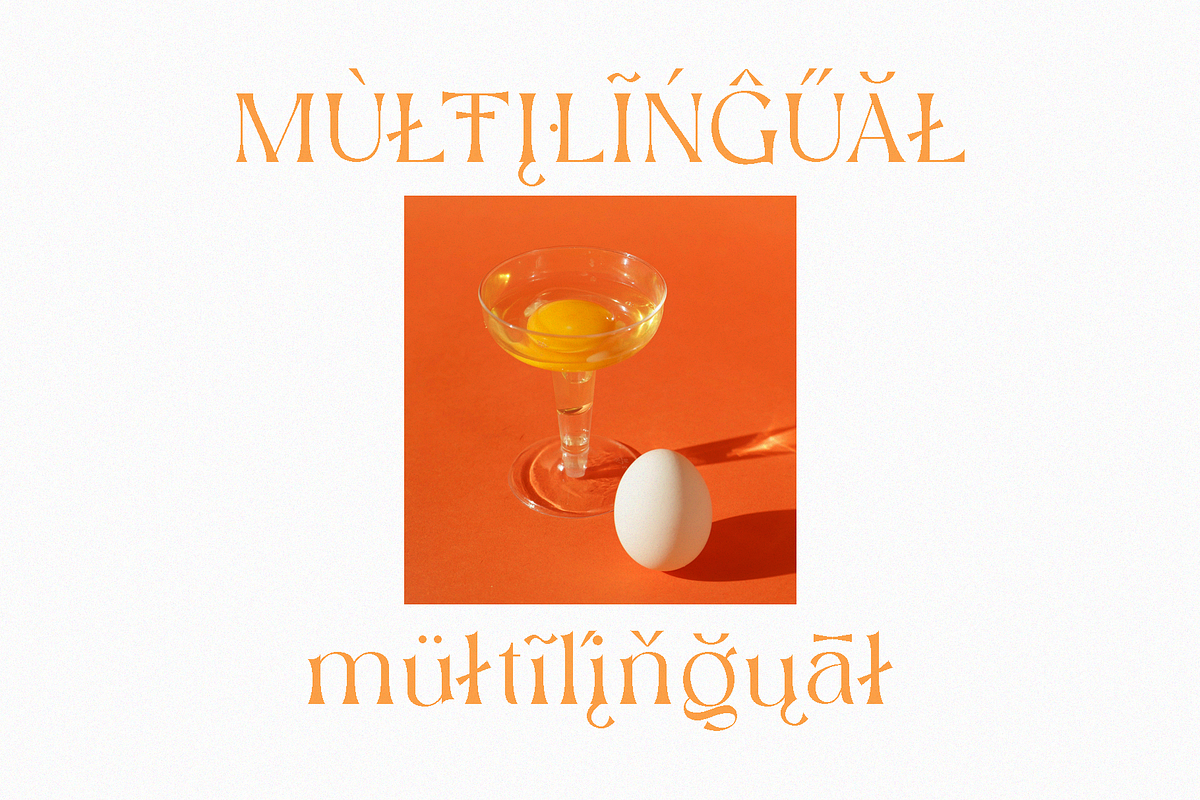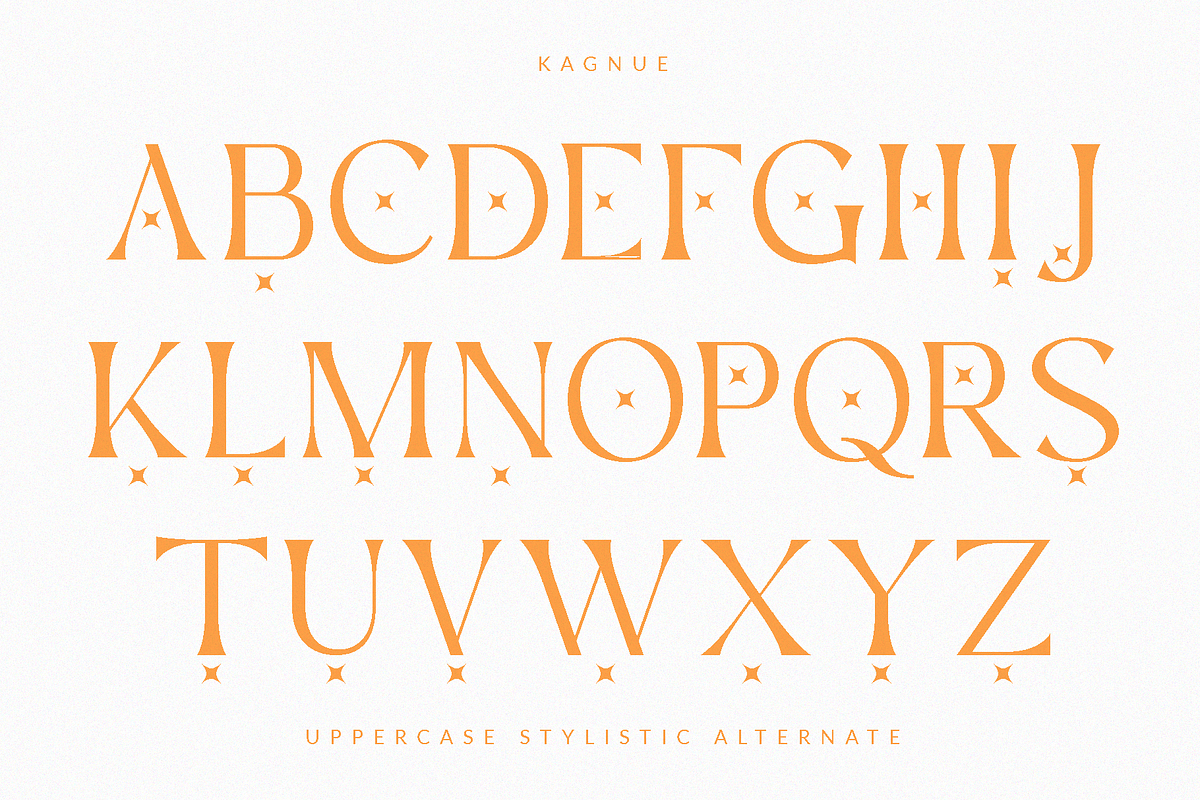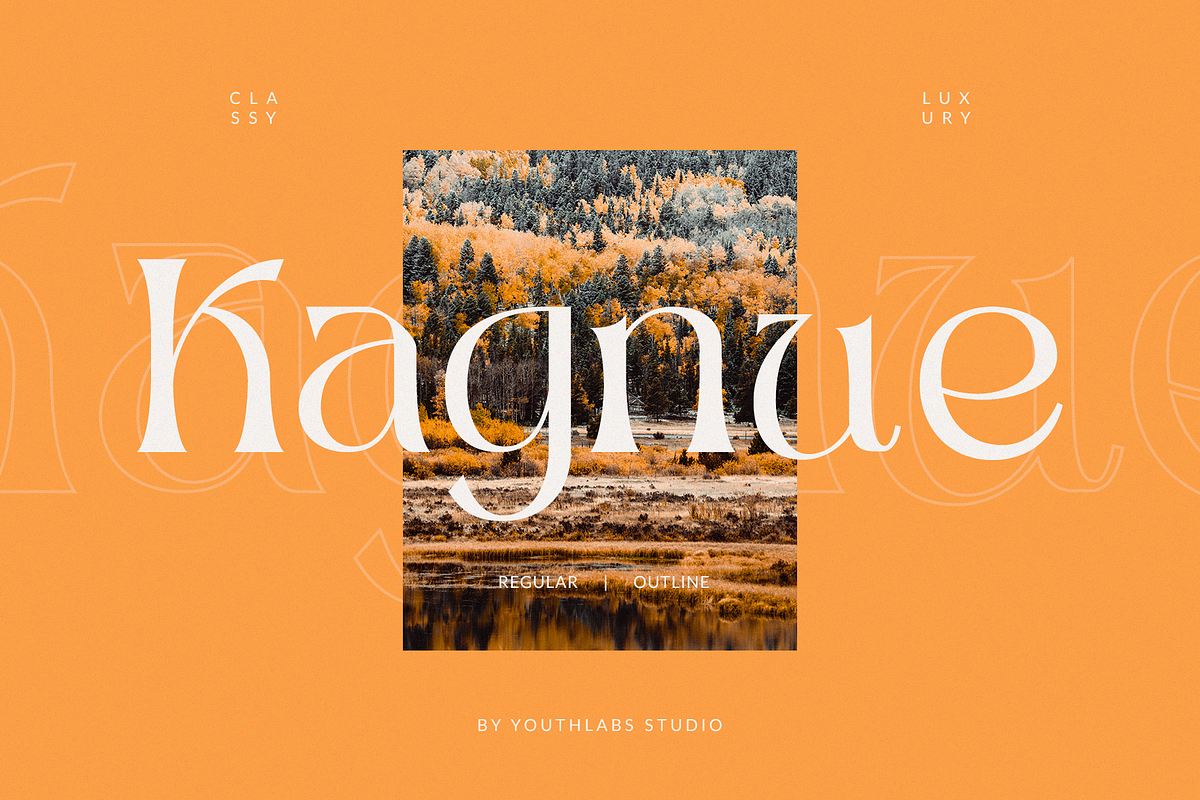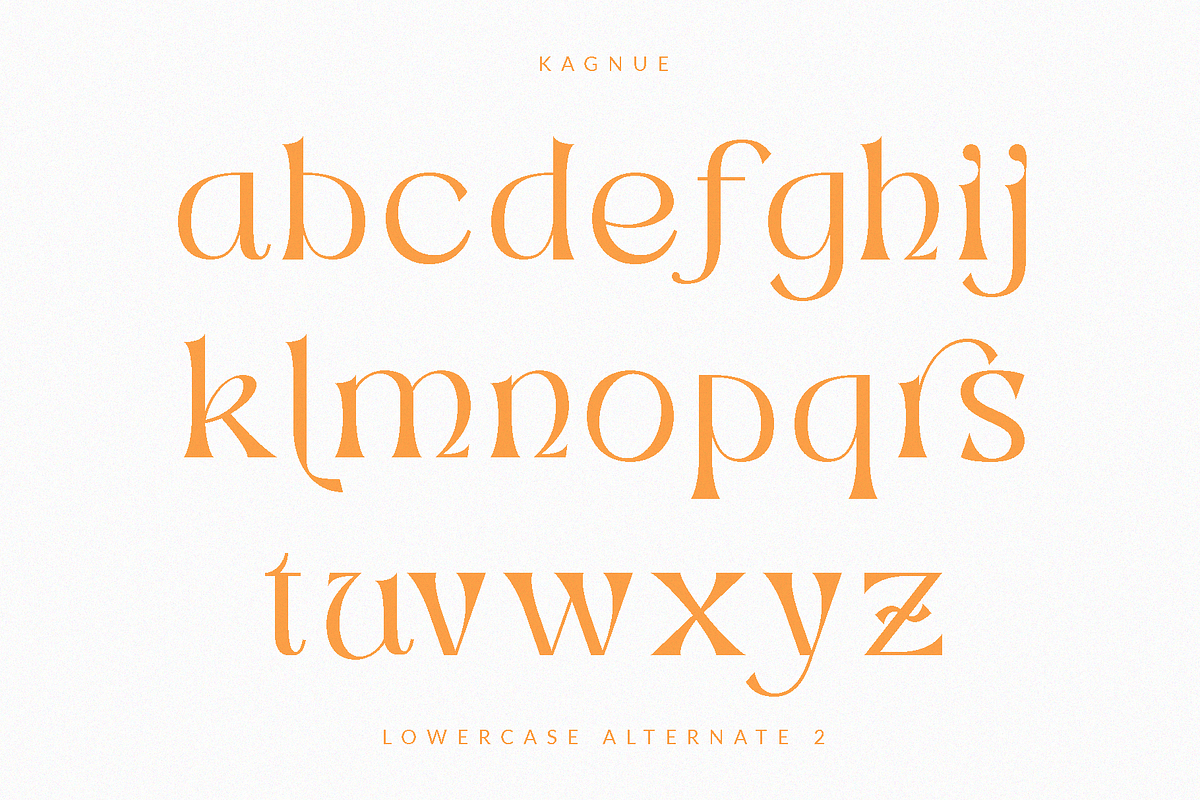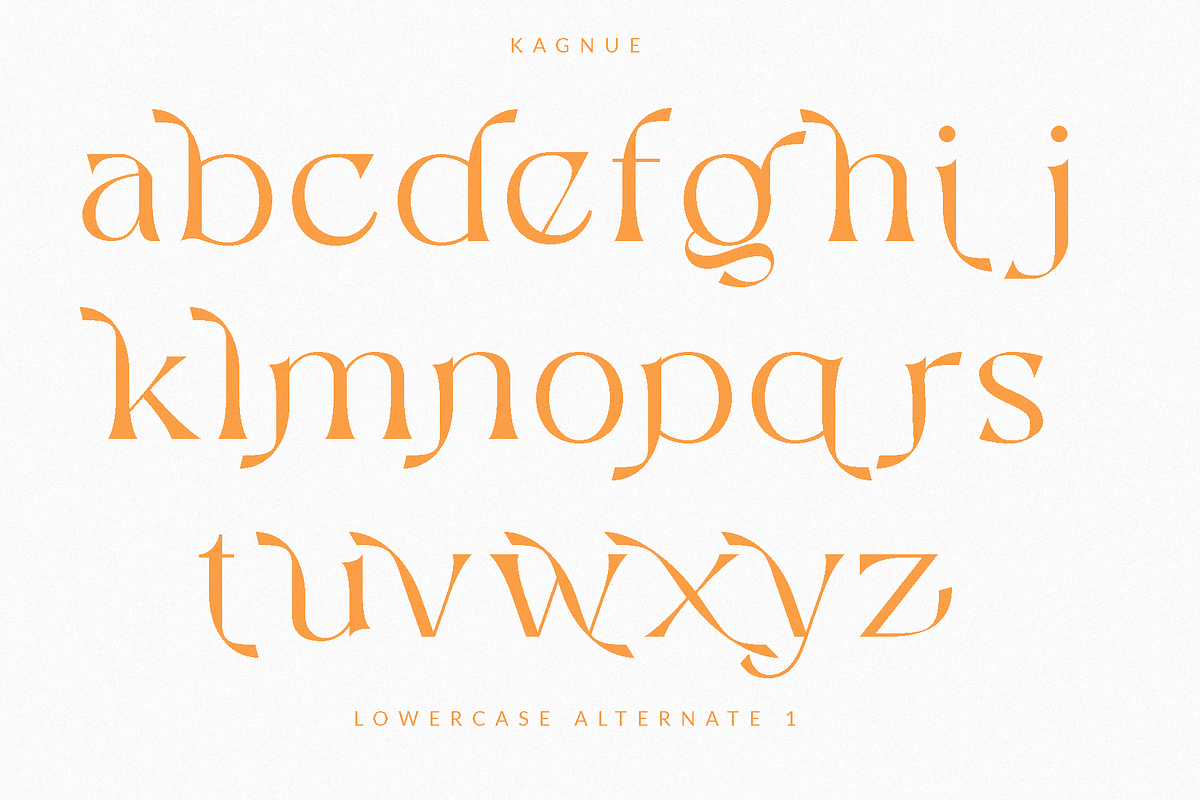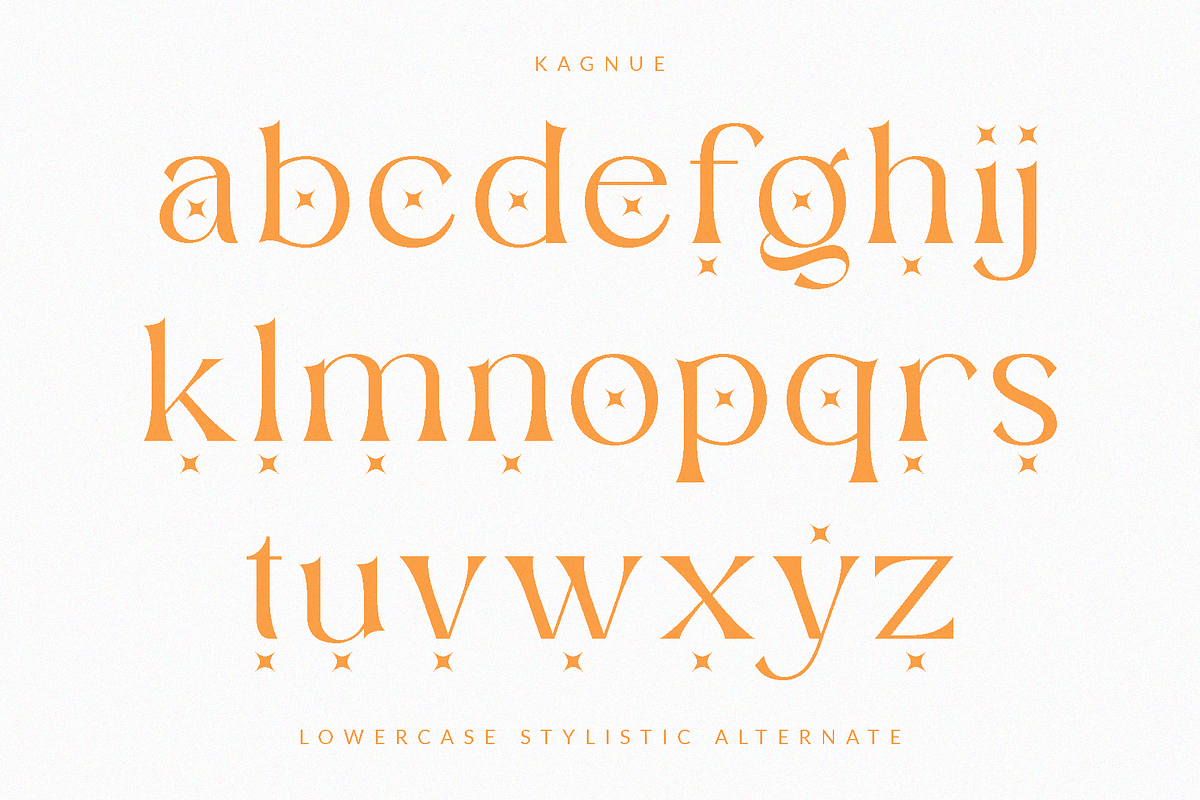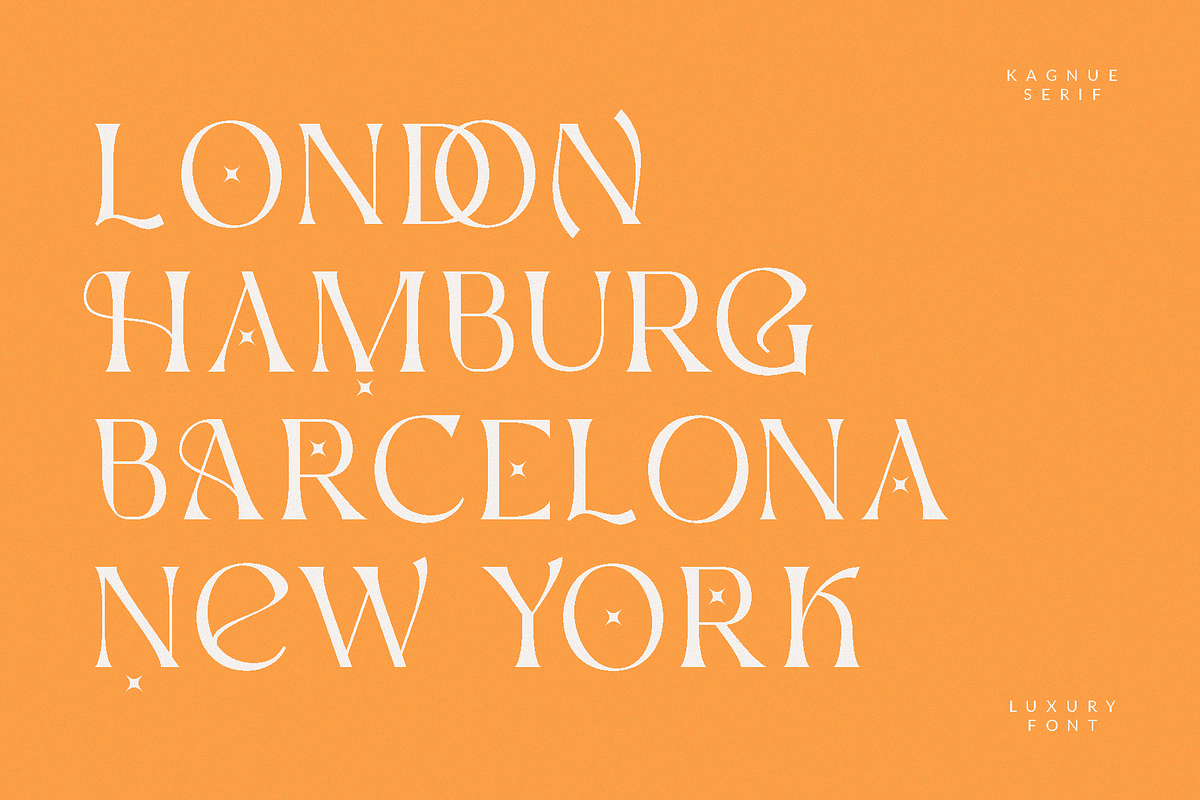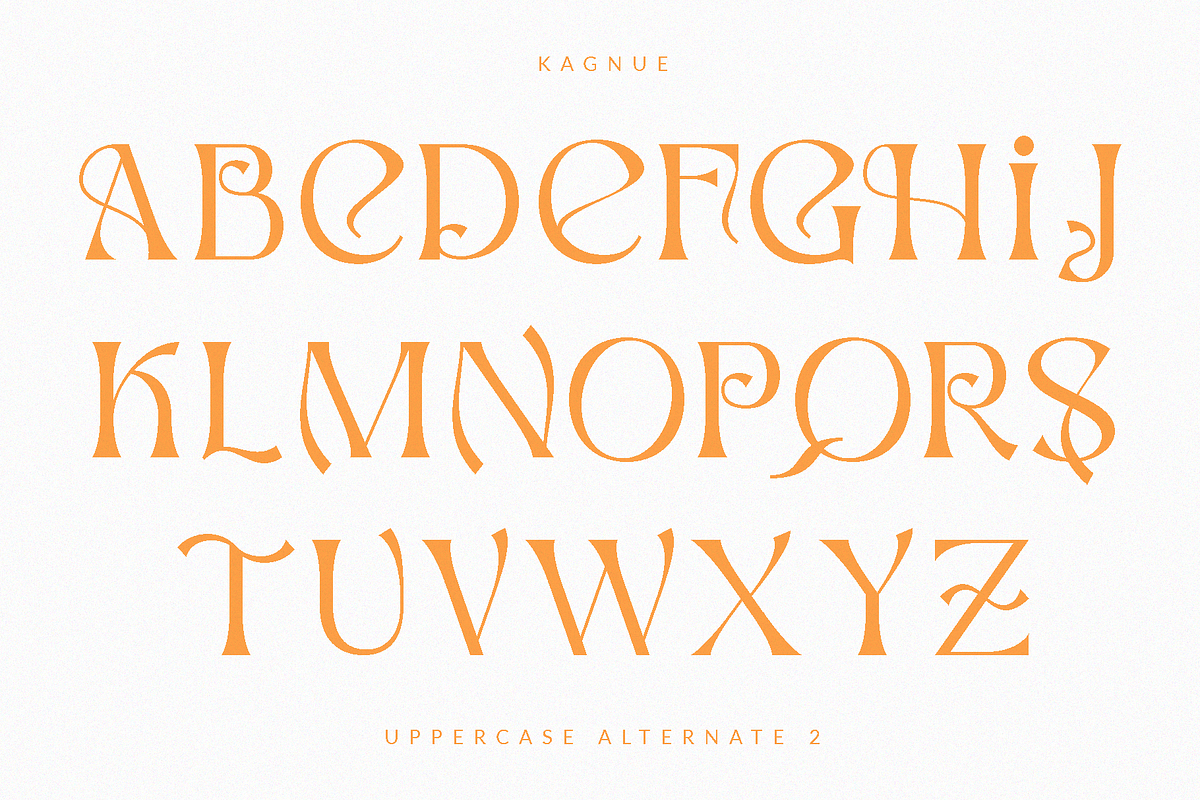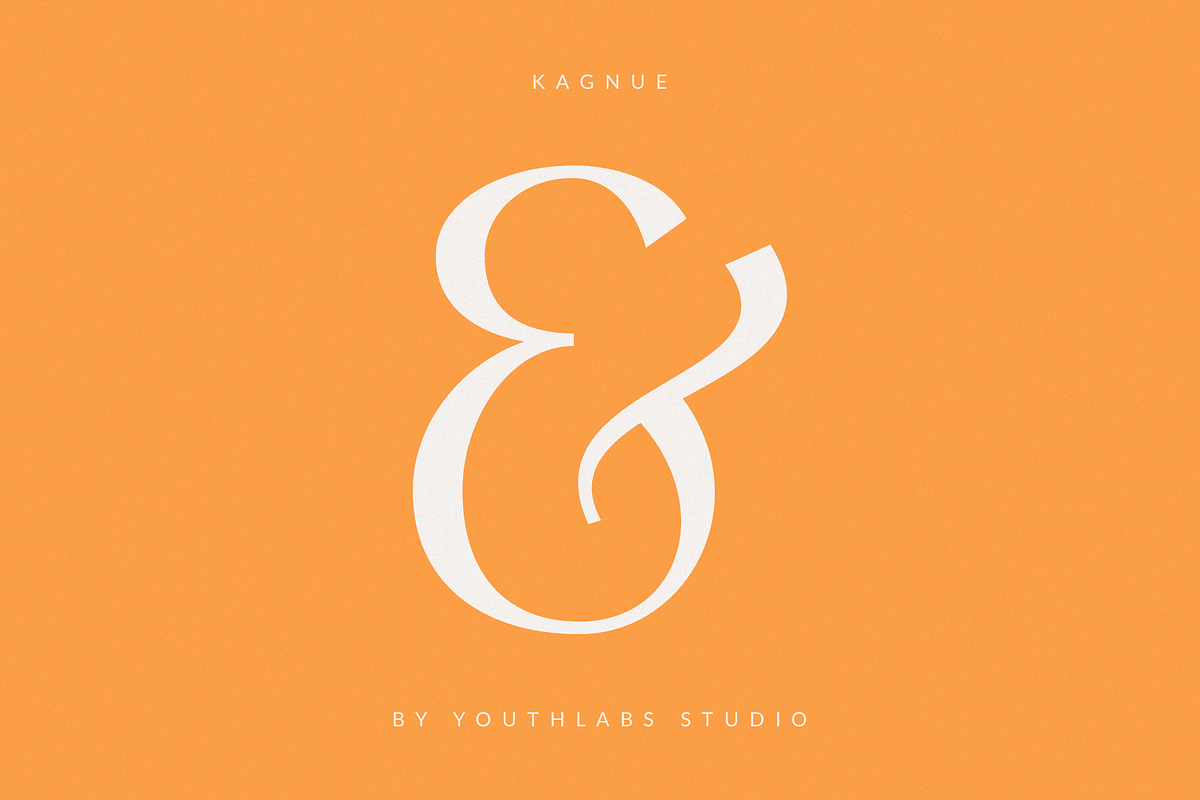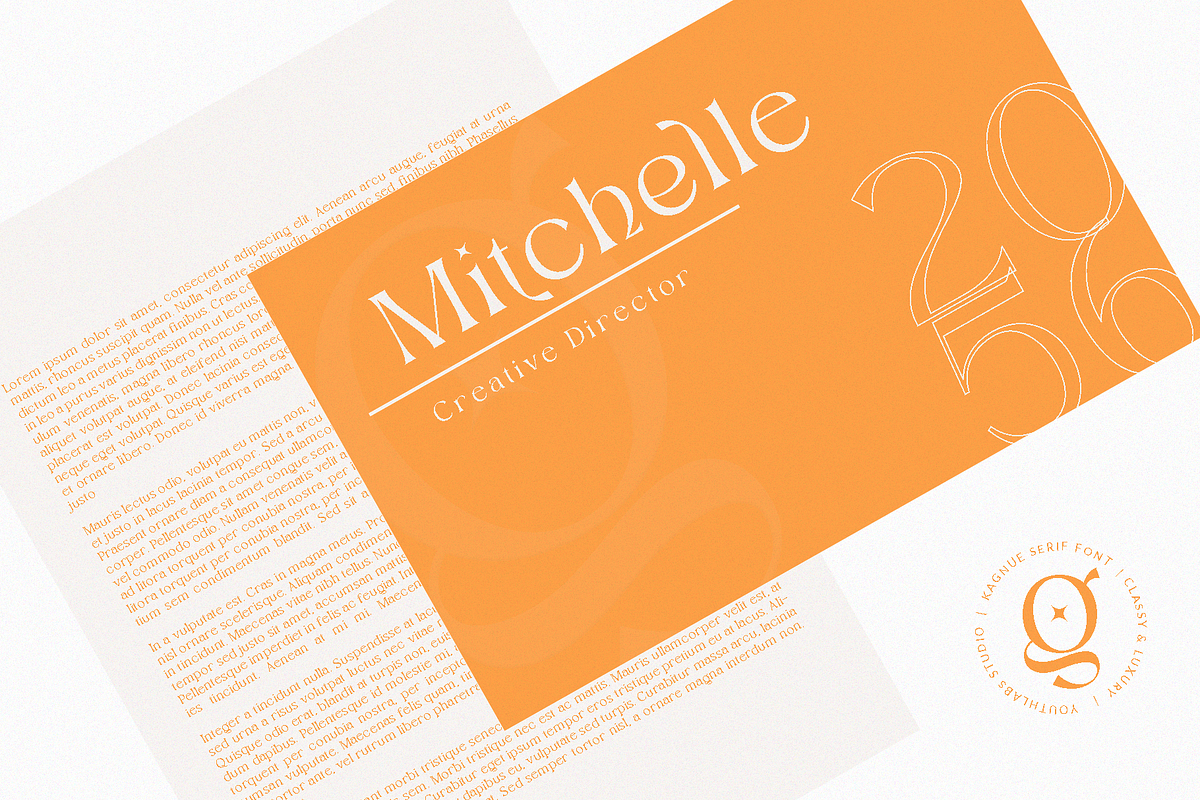
Kagnue Serif | Modern Classy Font
Introducing Kagnue Serif Font - A Brand New Serif Font with Classy and Modern style, Kagnue Serif font made with combination from classic italic font and modern shape. Kagnue Serif font come with More Opentype Feature, more neat curves
kagnue Serif Font Inspired by Classic and Modern Glyphs shape to make perfect font. Kagnue Serif is a very versatile font. you can use this font to various design. Basics character can improve to make stunning typography
What's the Feature ?
- Uppercase & Lowercase Alternate
- 84 Language Support
- Stylistic Alternate